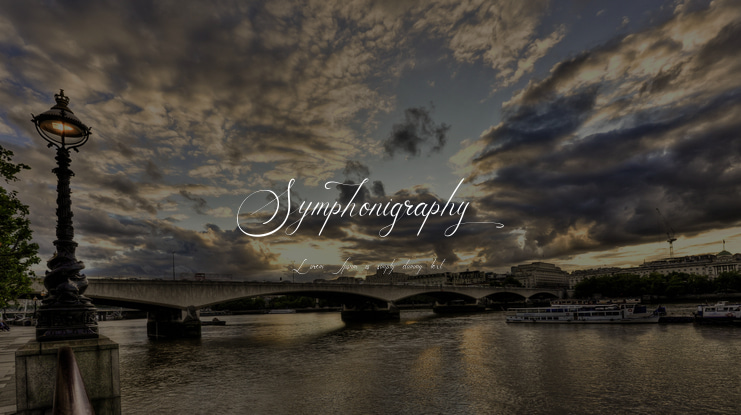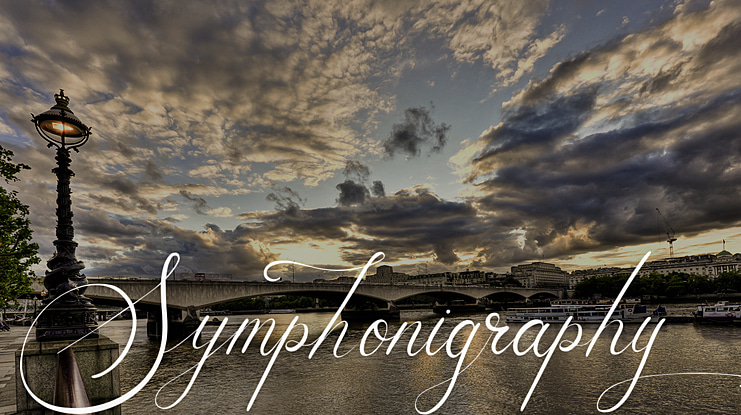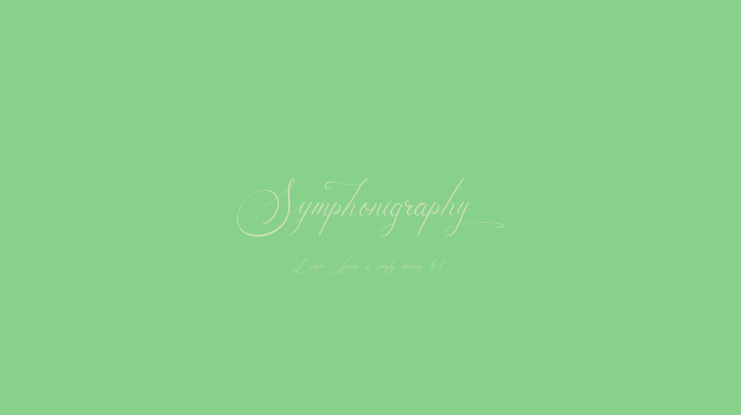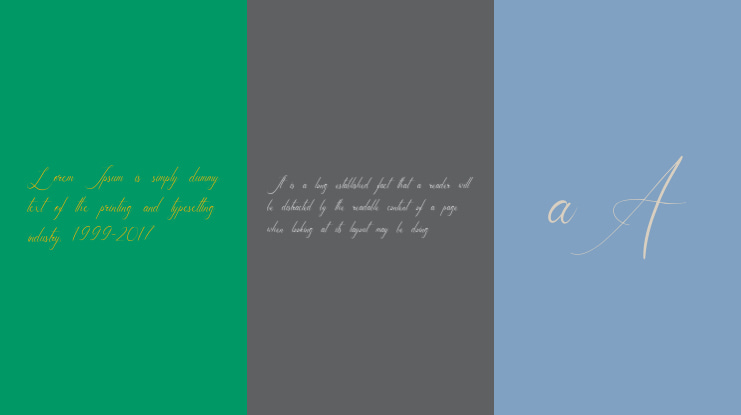
Symphonigraphy Font
Proudly Present, Symphonigraphy
Symphonigraphy is a Modern Calligraphy Font
Symphonigraphy is perfect for product packaging, branding project, megazine, social media, wedding, or just used to express words above the background.